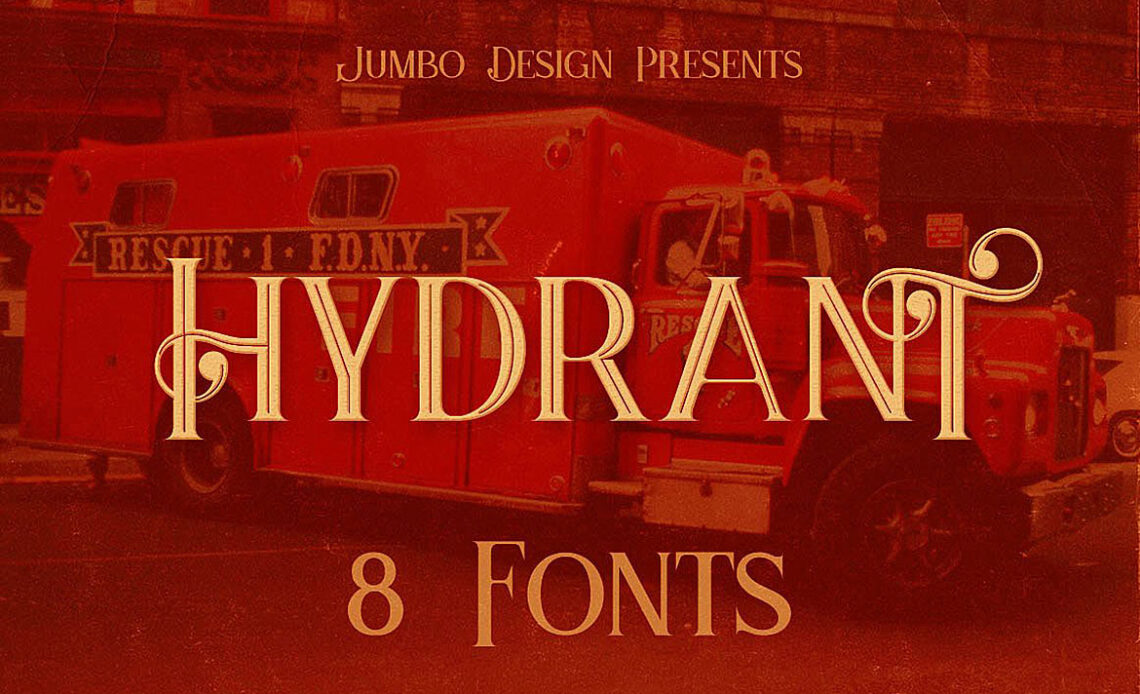
Introducing Hydrant Font: A Timeless Serif Creation for Enduring Elegance
In the realm of digital typography, Hydrant Font stands as a beacon of classic elegance and unwavering legibility. Carefully crafted by the skilled artisans at JumboDesign, Hydrant is a serif masterpiece that effortlessly blends the charm of yesteryears with the demands of modern design. Its meticulously designed characters exude a timeless appeal, ensuring your creations leave a lasting impression on every reader.
Beyond its aesthetic brilliance, Hydrant Font boasts remarkable versatility, seamlessly adapting to a diverse range of design projects. Whether you seek to craft captivating logos, elegant brochures, compelling social media posts, or immersive website designs, Hydrant Font emerges as the perfect companion. Its inherent charm breathes life into wedding invitations, bestowing a touch of romantic nostalgia upon your special day. Unleash your creativity in crafting eye-catching posters and flyers that command attention, or effortlessly elevate your branding materials with a touch of timeless sophistication.
With Hydrant Font at your disposal, the possibilities are boundless. Its meticulously crafted curves and refined details add a touch of understated luxury to any project. Whether you seek to convey the rich heritage of a centuries-old establishment or the cutting-edge innovation of a modern enterprise, Hydrant Font seamlessly adapts to your vision. Its sophisticated presence adds gravitas to legal documents and captivates readers in the realm of fiction.
But Hydrant Font is more than just a visually stunning typeface; it's an investment in enduring elegance. Its timeless design ensures that your creations remain relevant and captivating for years to come, transcending fleeting trends and ever-changing design fads. With Hydrant Font as your trusted ally, you embark on a journey of creative expression, leaving an indelible mark on the hearts and minds of your audience.